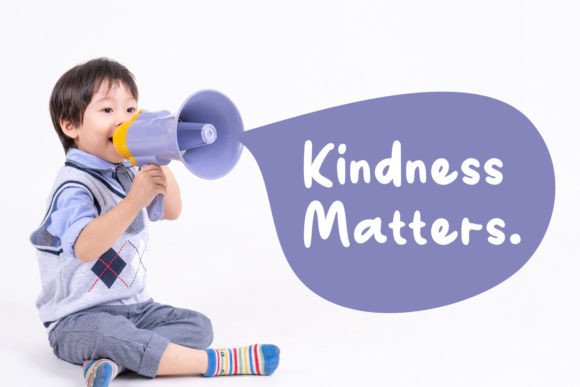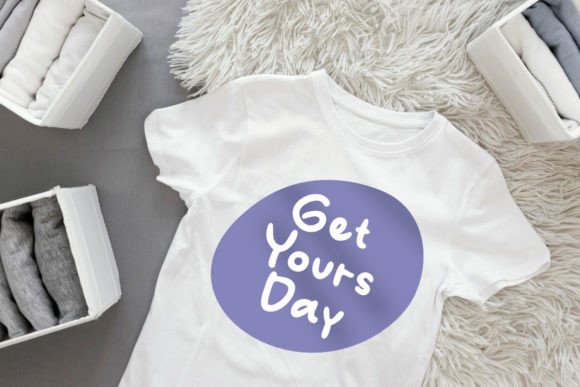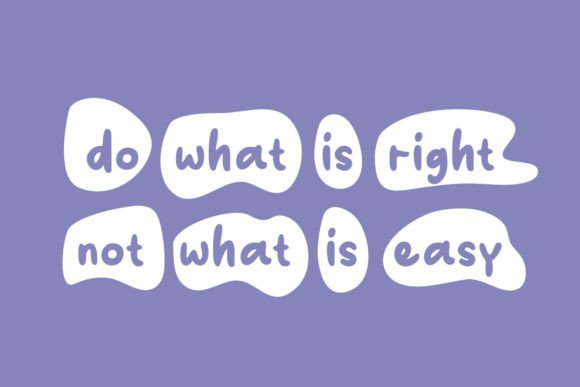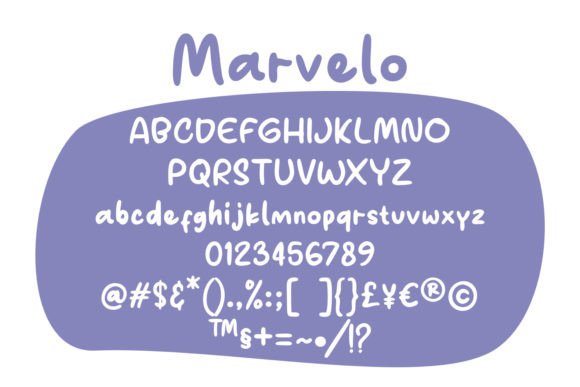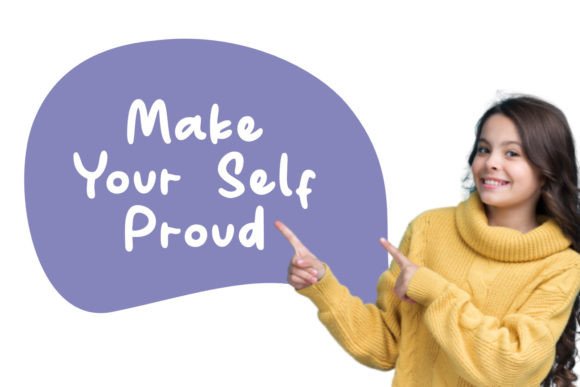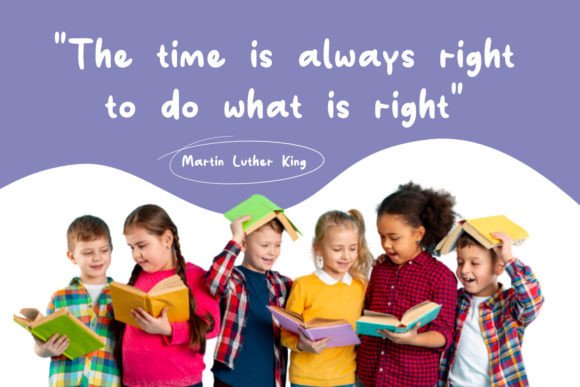
Introduction to Marvelo Font
Have you ever stumbled upon the perfect font for your creative project, only to find it’s no longer available? That’s a frustrating moment for any designer. But what if I told you about a font that’s here to stay – and it’s free to download? Welcome to the Marvelo Font, a comic display font that’s fun, clean, and perfect for making your designs stand out.
This high-quality font is a game-changer for designers, offering endless possibilities for creative projects. Whether you’re working on a logo, branding, or social media post, Marvelo Font is the perfect design resource to elevate your work. With its transparent background and clean lines, it’s easy to see why this font is a favorite among designers. And the best part? You can download it for free, making it an accessible addition to any design arsenal.
- Unique characteristics include a modern aesthetic and a wide range of customizable options, making it an excellent choice for designers.
Honest Review: Marvelo Font
I recently stumbled upon the Marvelo Font, a free download that has been making waves in the design community. As a designer, I was excited to test it out and see if it lived up to the hype.
- ✨ High-quality design: The Marvelo Font has a clean, modern aesthetic that makes it perfect for creative projects.
- ⚠️ Limited font weights: The Marvelo Font only comes in a few font weights, which can be limiting for designers who need more options.
- ⚠️ Not ideal for body text: While the font is great for headlines and titles, it may not be the best choice for body text due to its bold, eye-catching design.
Overall, I’m impressed with the Marvelo Font’s design and functionality. While it may have some limitations, it’s still a valuable resource for designers who are looking for a high-quality, free font to add to their design arsenal.
The Marvelo Font is ideal for creating visually appealing titles, headings, and body text in a variety of creative projects. It’s also great for use in logos, branding materials, and other design elements that require a high-quality, transparent background.